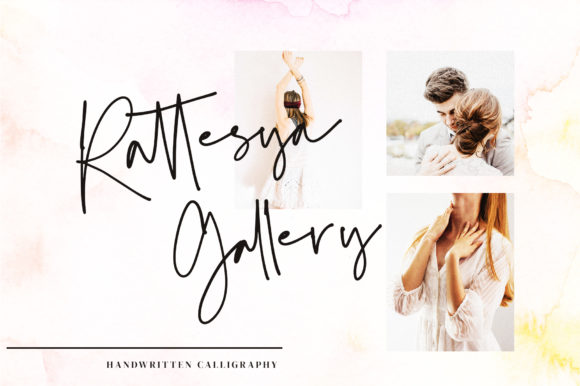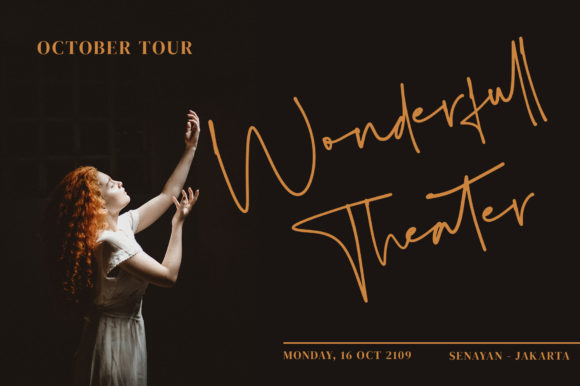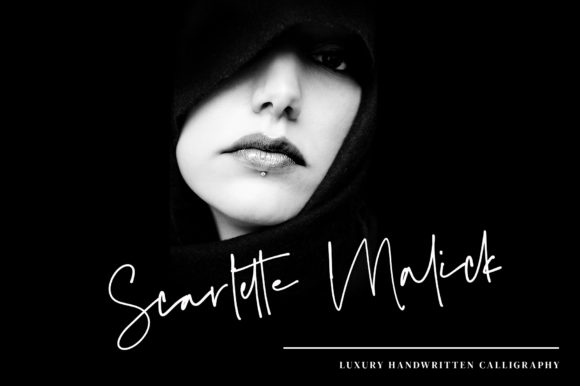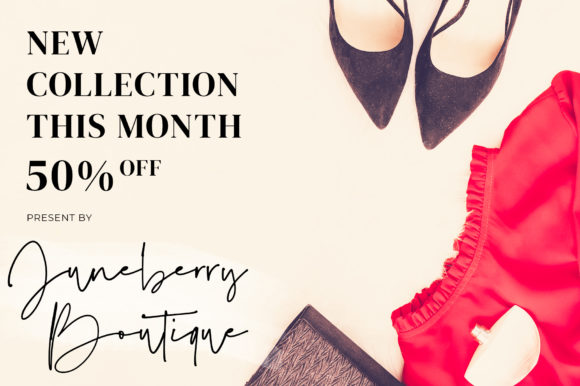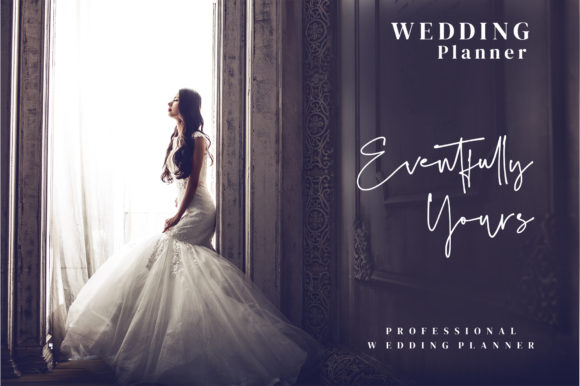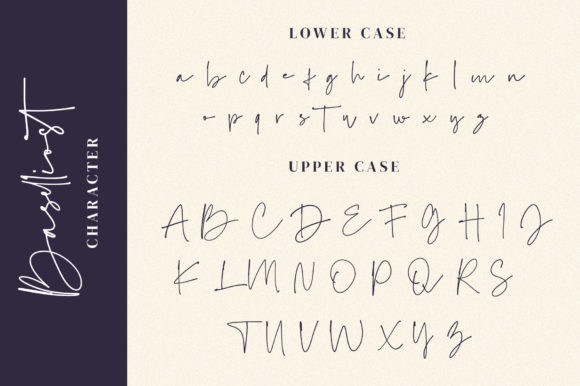
The Perfect Match for Your Next Design Project
As designers, we’ve all been there – staring at a blank page, struggling to find the perfect font to bring our vision to life. But what if I told you that I’ve discovered a game-changer? A font that’s not only aesthetically pleasing but also packs a punch with its bold charm. Meet the Baselliost Font, a stunning addition to any designer’s toolkit.
This elegant font features beautiful curves and rich swashes that will elevate any design project. Whether you’re creating a luxury brand, a wedding invitation, or a high-end magazine, the Baselliost Font is sure to impress. Its versatility and sophistication make it a valuable asset for designers who want to take their work to the next level.
Baselliost Font Key Features
- Unique Characteristics: This font features a unique blend of geometric and organic elements, giving it a distinctive and modern aesthetic.
- Kerning and Ligatures: The font includes advanced kerning and ligature tables, ensuring that text sets are displayed with precision and elegance.
Baselliost Font Review
Overall, I think Baselliost is a unique and interesting font that can be a great addition to a project, but it’s not without its limitations.
- Baselliost has a distinctive, hand-drawn feel that can add a lot of character to a design.
- The font is highly legible, even at small sizes, which is a must for any font.
- The wide range of weights and styles available makes it easy to find the perfect fit for any project.
- The font can feel a bit too playful or whimsical for some projects, which may not be suitable for more formal or professional designs.
- The font’s unique characteristics can also make it feel a bit inconsistent or hard to read in certain contexts.
- The font is not as versatile as some other fonts, and may not work well in all languages or character sets.
Baselliost is a great font for designers who are looking for something unique and eye-catching. While it may not be the best choice for every project, it’s definitely worth considering for designs that need a bit of flair or personality.
Use Baselliost for elegant and sophisticated designs, such as wedding invitations, luxury product labels, or high-end branding materials.
Experiment with different font sizes and colors to create a unique and eye-catching visual effect.
Combine Baselliost with other elegant fonts or serif fonts to create a harmonious and professional look.